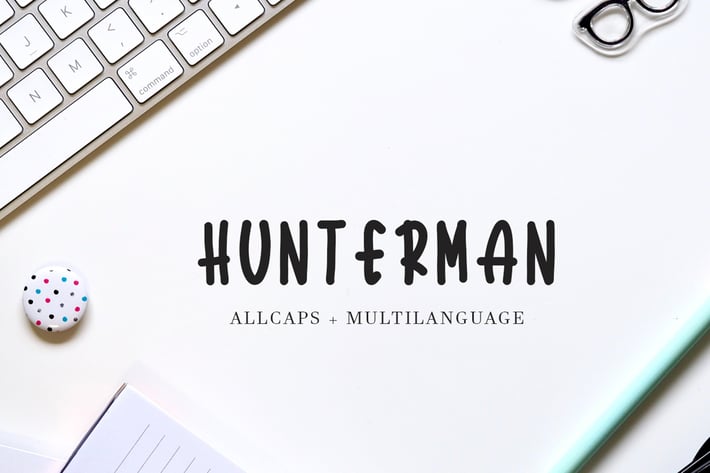
Hunterman Font
Introducing Hunterman Typeface a rounded vintage monoline. Hunterman is clean modern-vintage display font which inspired from old school letterpress
• Character Set A-Z
• Numerals & Punctuations (OpenType Standard)
• Accents (Multilingual characters)